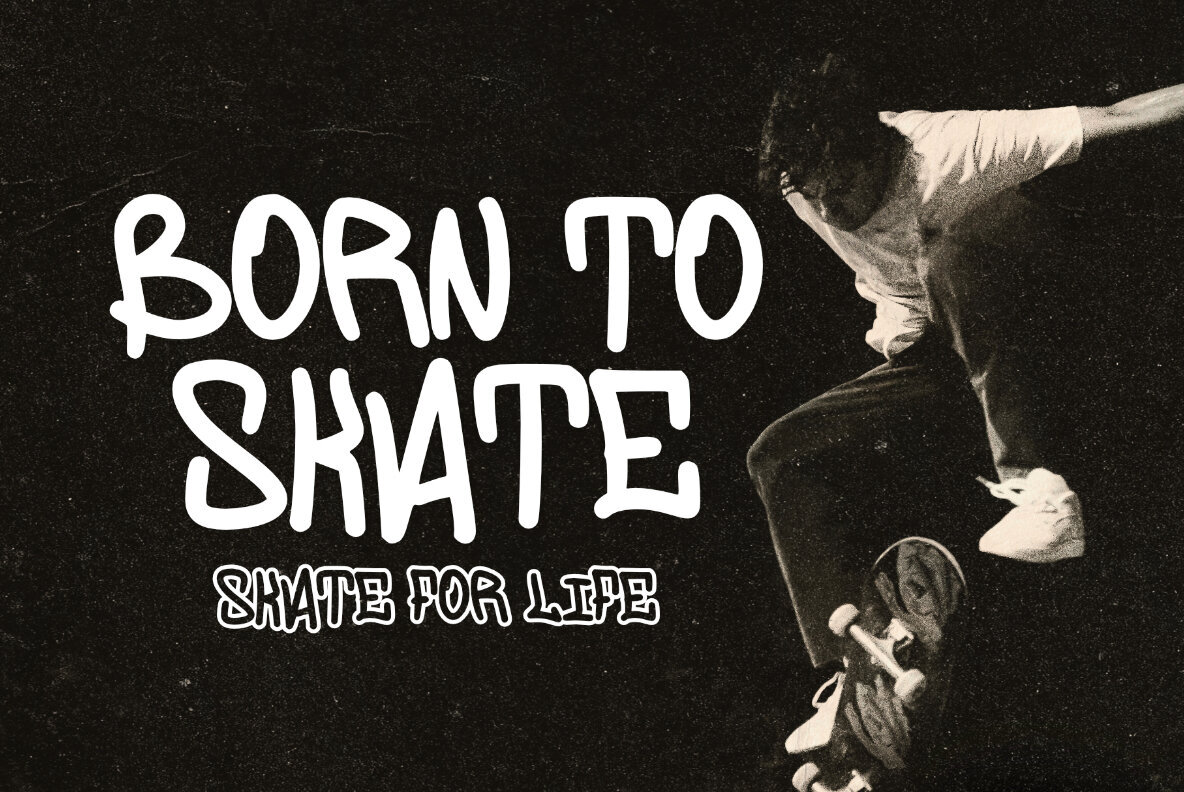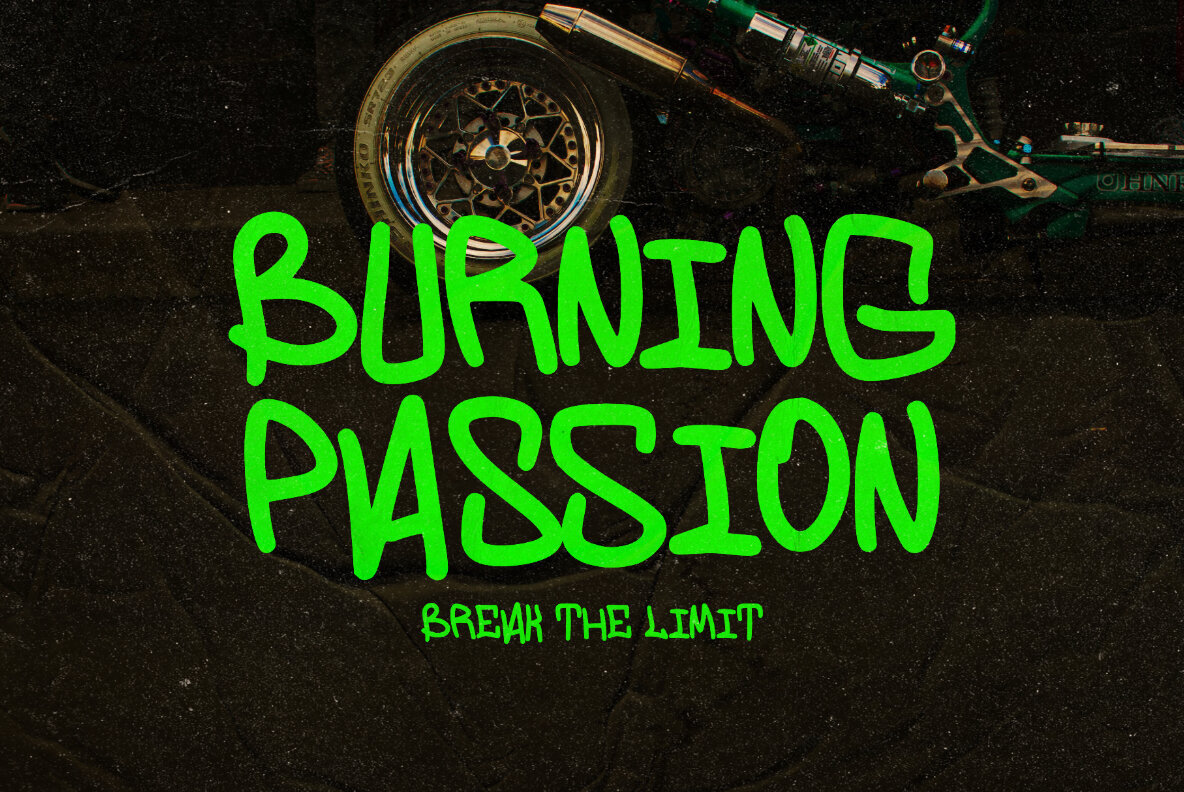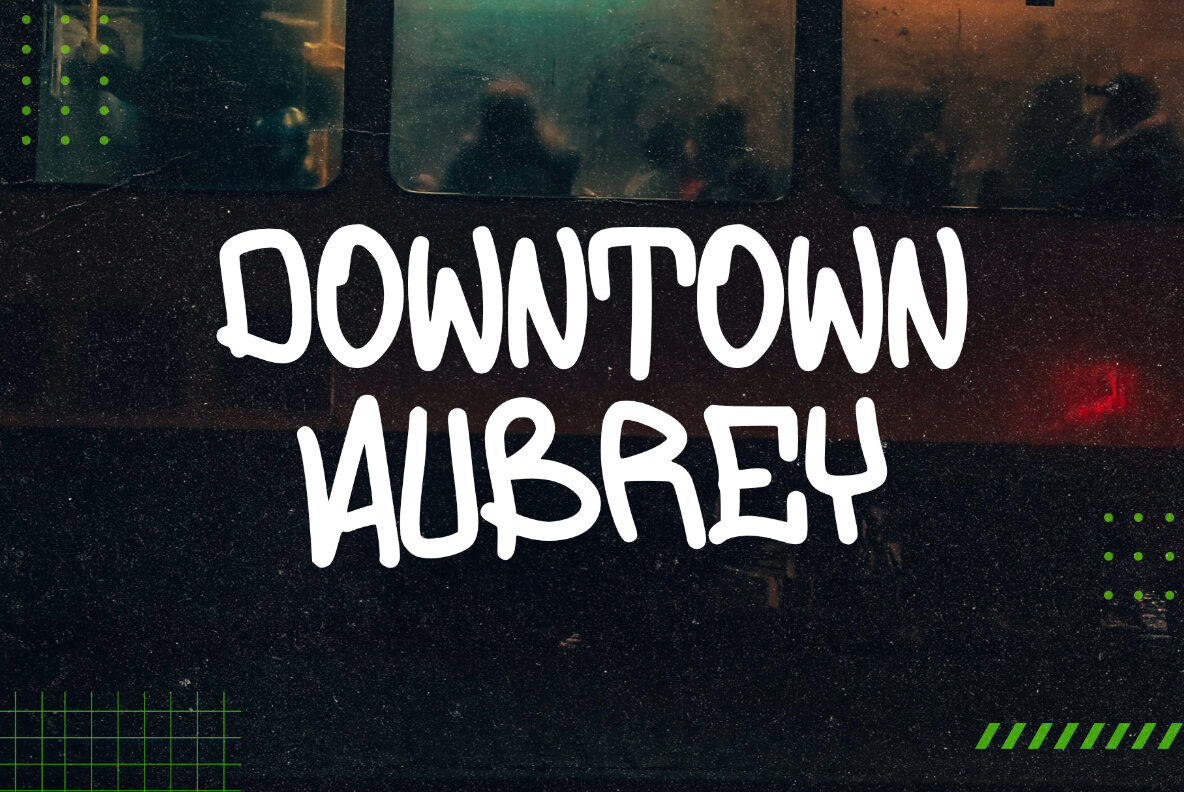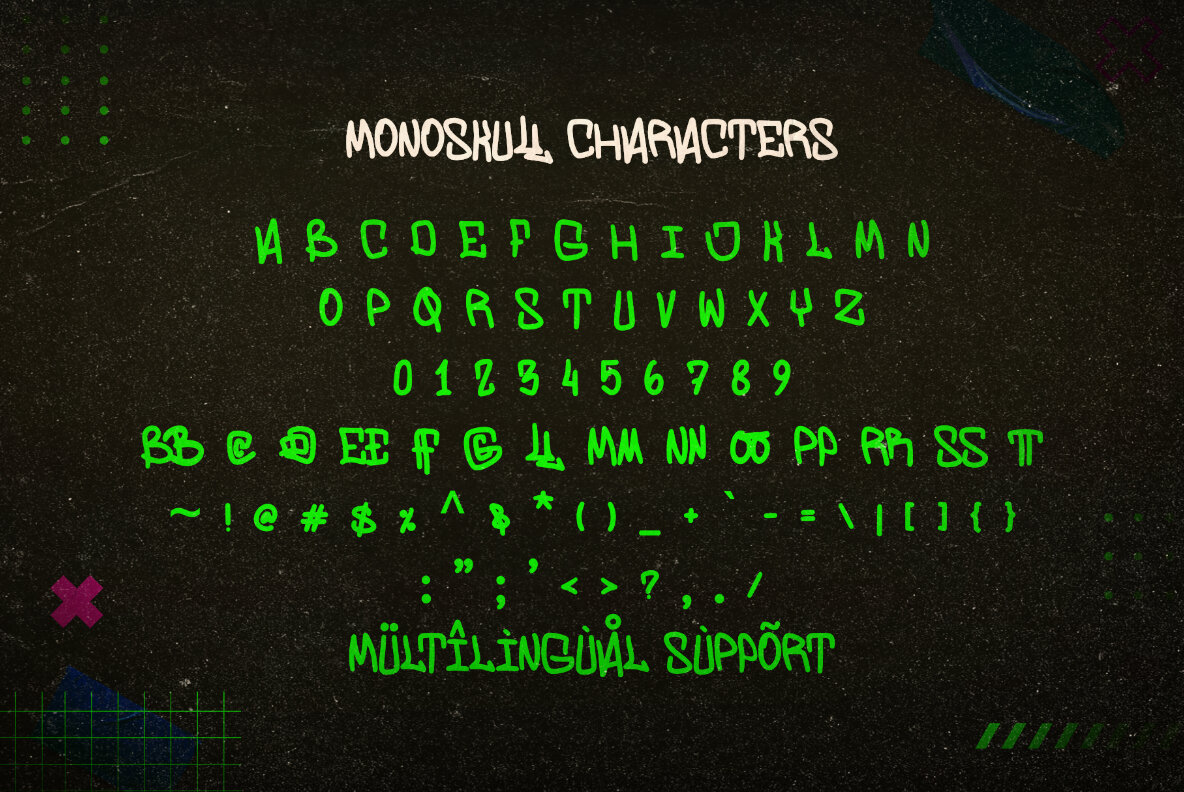
Monoskull Font
Monoskull Regular
The Monoskull font combines chic style with the authentic look of street markers. Its elegant ligatures make it a versatile choice for a wide range of projects.Monoskull: Chic Font with Natural Streetmarker Appeal